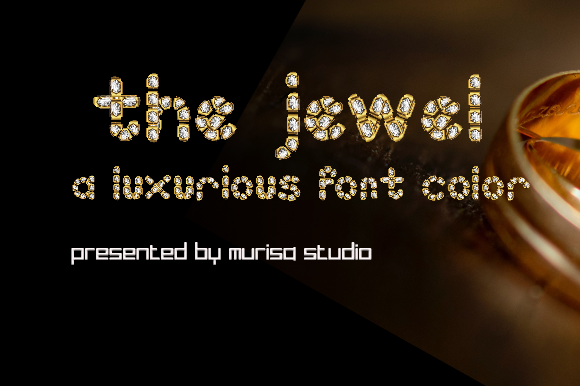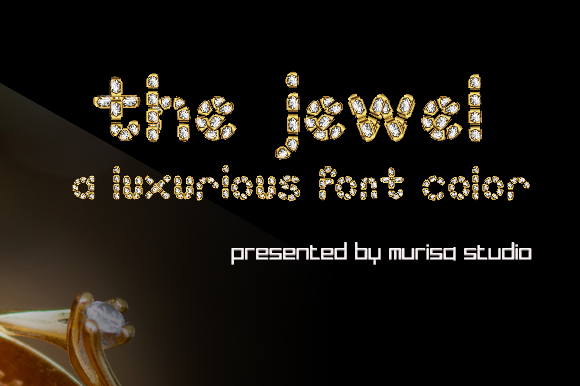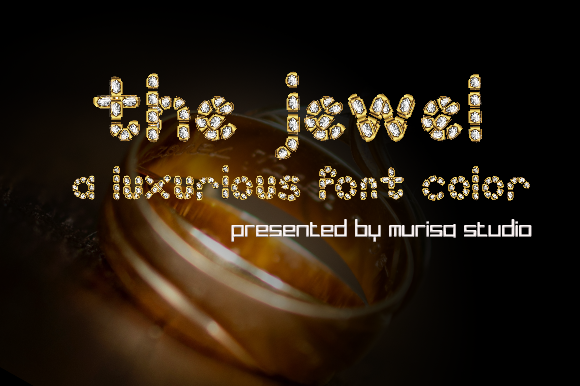
The Jewel Font
About The Jewel Font
Introducing The Jewel, a captivating and luxurious color font that adds a touch of elegance to your designs. This font is designed to exude opulence and sophistication, making it perfect for your most precious creations.
With its intricate details and vibrant colors, The Jewel breathes life into your designs, transforming them into works of art. Each letter is carefully crafted to resemble precious gemstones, radiating brilliance and glamour. Whether you’re working on high-end branding, luxurious invitations, or exquisite packaging, The Jewel will elevate your designs to new heights.
Add The Jewel to your design arsenal and watch as your creations come to life with a touch of luxury. Whether you’re designing for fashion, jewelry, beauty, or any other industry that demands sophistication, The Jewel will make a statement and leave a lasting impression.
Unlock the beauty and opulence of The Jewel in your designs. Let its radiant colors and exquisite details captivate your audience and showcase the essence of luxury. Embrace the allure of this unique color font and create stunning visuals that evoke a sense of elegance and refinement.